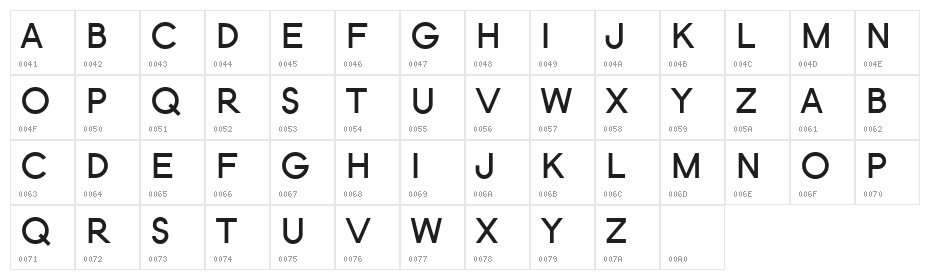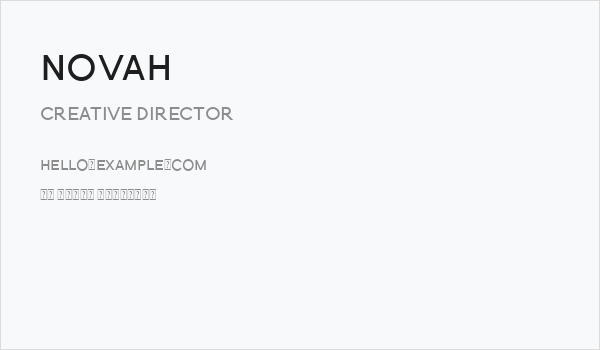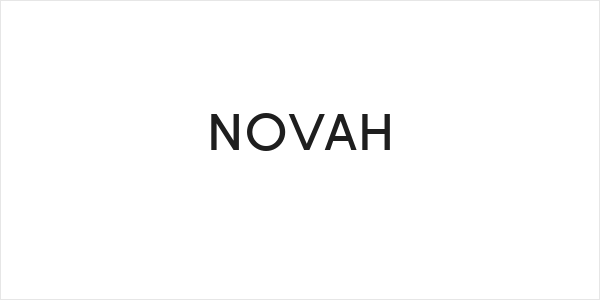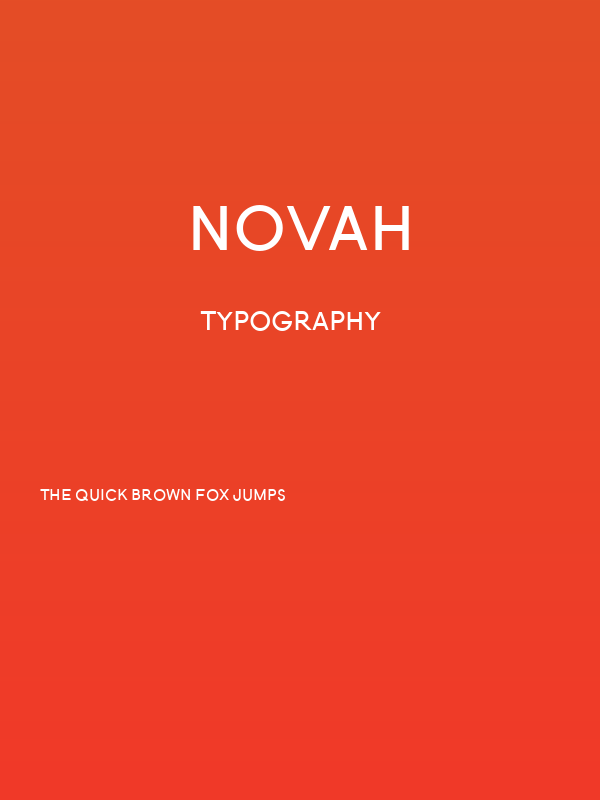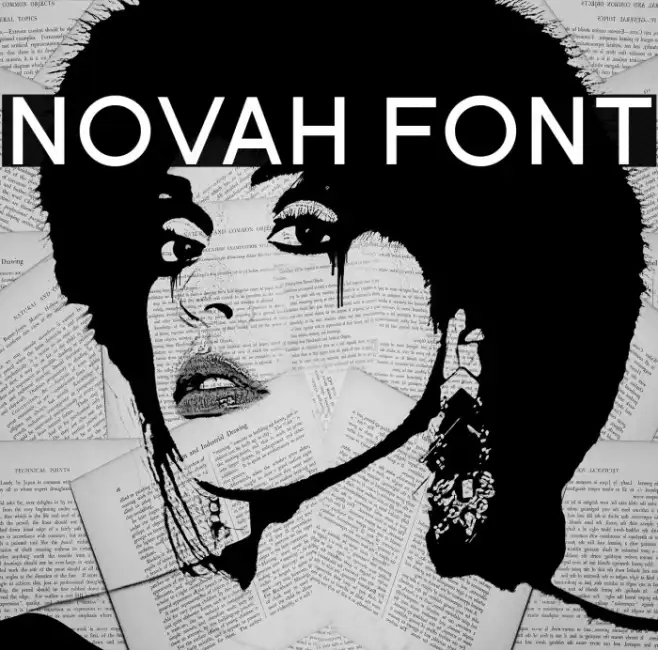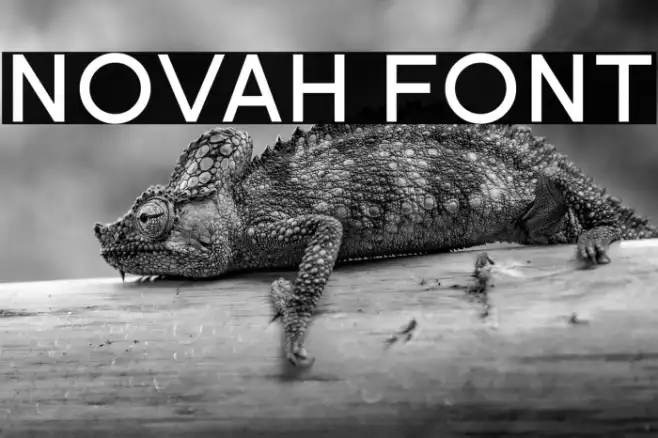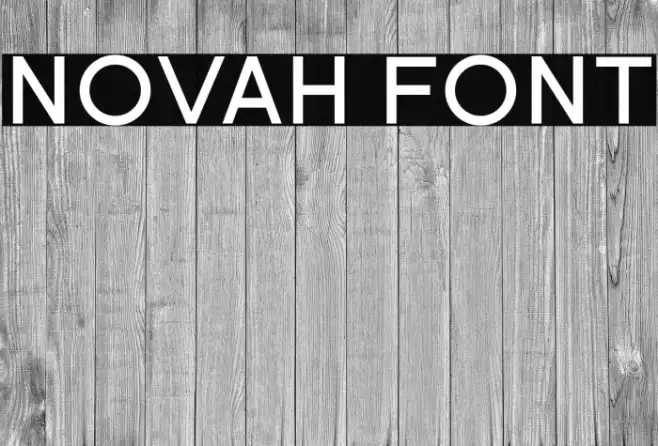
Novah Font
Novah Description
A clean and modern sans-serif font with uniform stroke widths and geometric shapes.
| Proposed Projects | Branding, web design, advertising. |